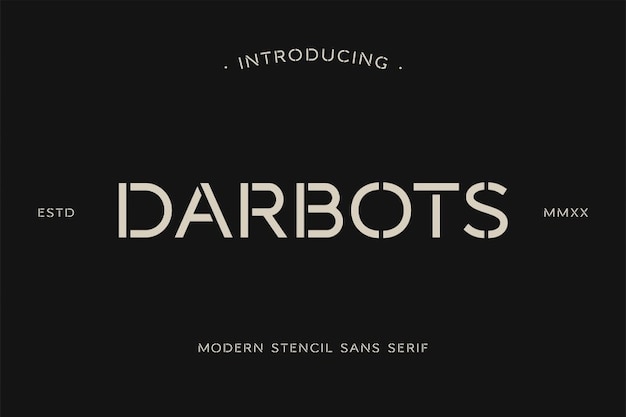
Darbots Font
Darbots font is the embodiment of stencil simplicity with a geometric twist. Its clean lines and sharp angles create a modern, no-nonsense vibe that's perfect for conveying clarity and precision. Whether you're designing signage, logos, or industrial-themed projects, Darbots makes your text stand out with its straightforward, minimalist charm. It's a no-frills font that means business, giving your words a strong and structured appearance.